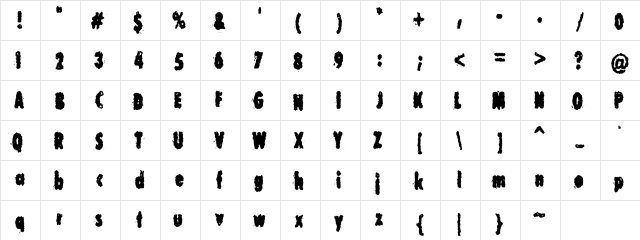
Corrupt Government Regular
| Foundry | MR.FISK FONTS |
| Designer | MR.FISK |
Design Context for Corrupt Government Typeface
Corrupt Government is a composed and adaptable typeface that performs quietly and consistently across a wide range of design contexts.